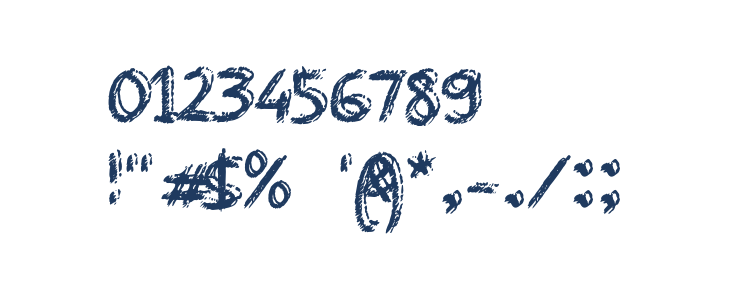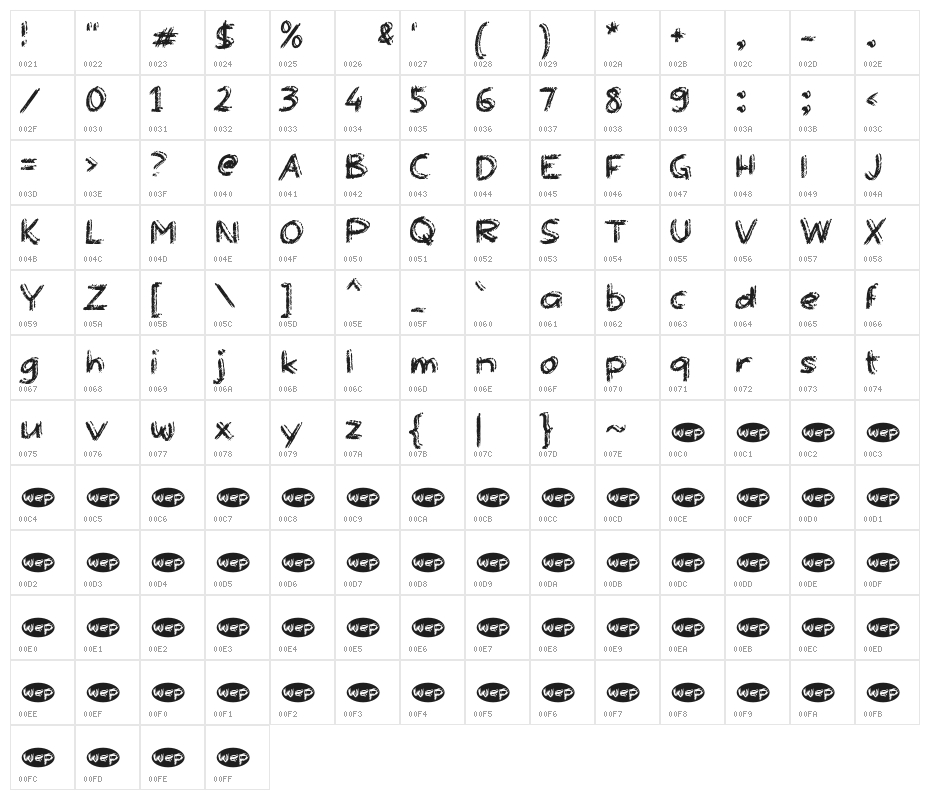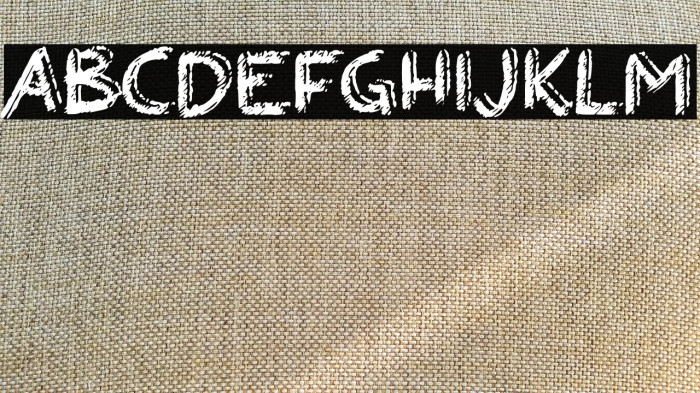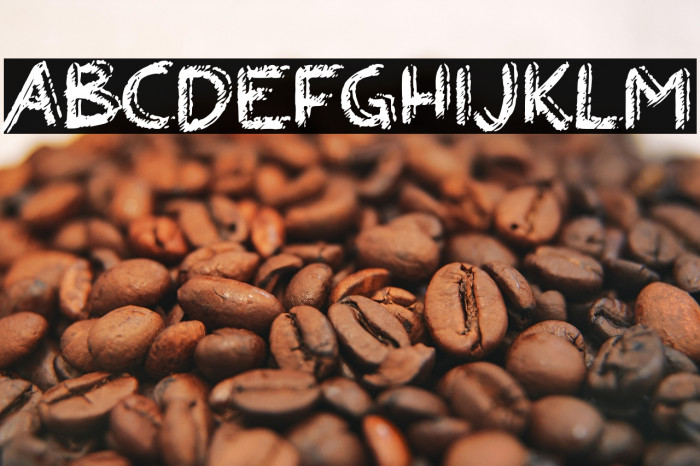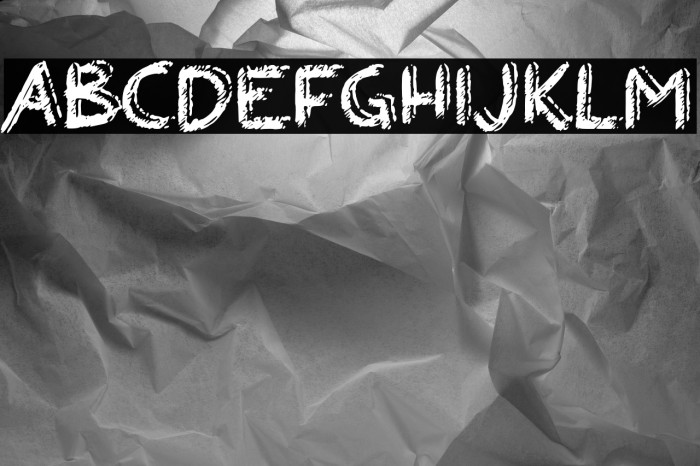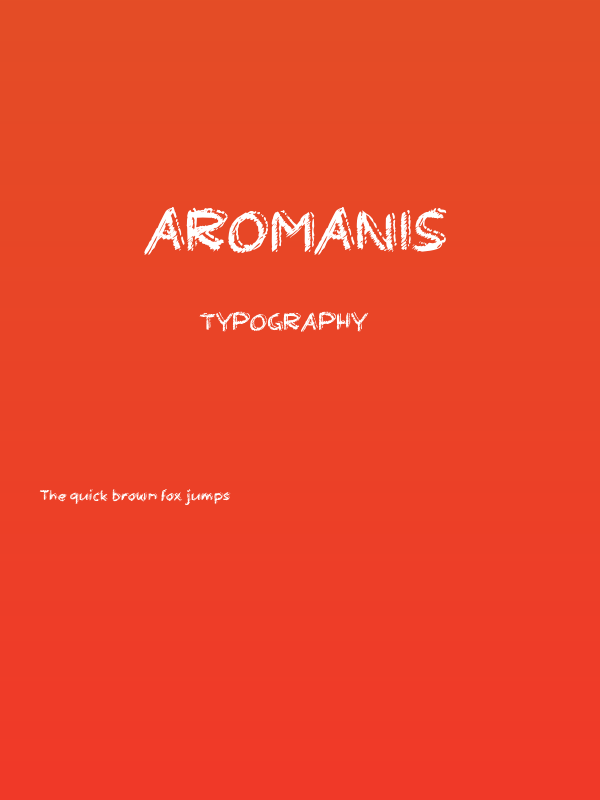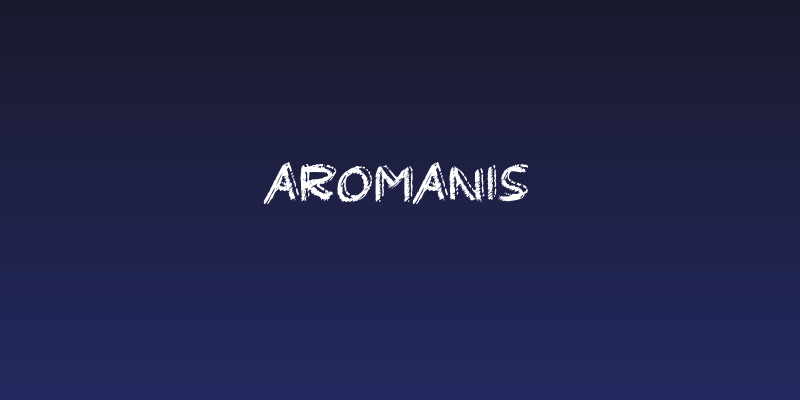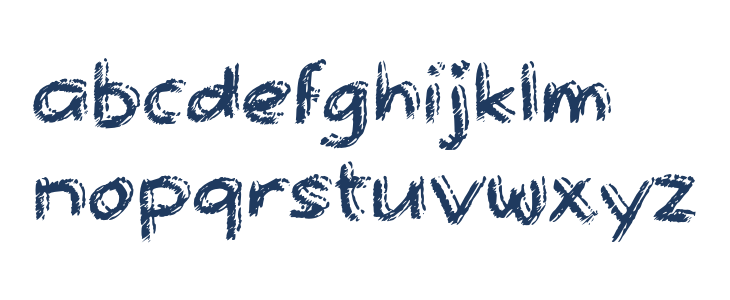
Aromanis Font
Aromanis Description
This font features a bold and textured appearance, reminiscent of hand-drawn or painted letters. The strokes are irregular and rough, giving it a dynamic and energetic feel. Each character is distinct, with a playful yet edgy style that stands out. The uppercase and lowercase letters maintain a consistent design, while the numerals and special characters complement the overall aesthetic. This font is ideal for projects that require a strong visual impact and a touch of creativity.
Proposed ProjectsIdeal for posters, album covers, branding, and creative design projects.